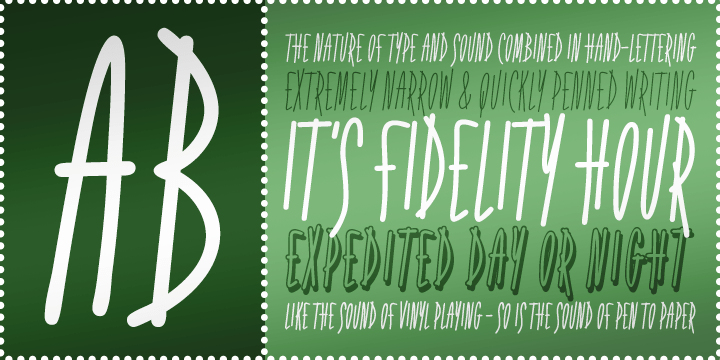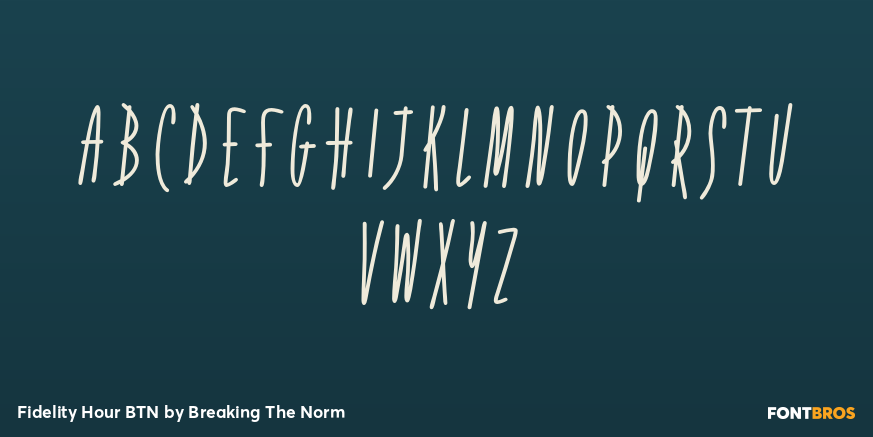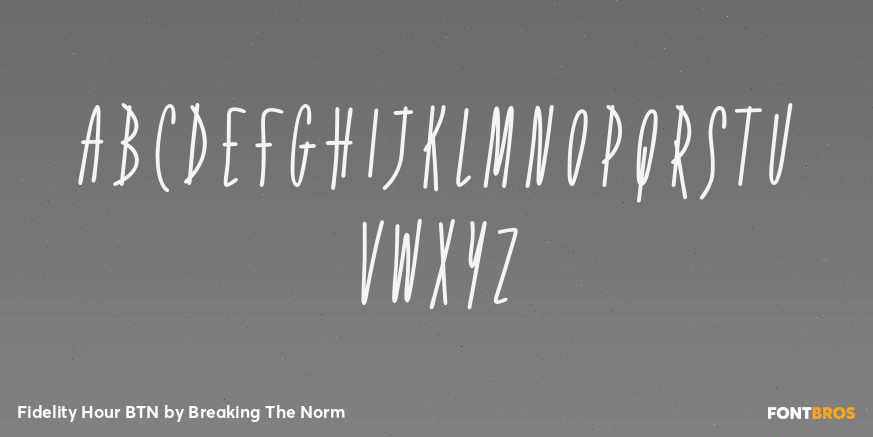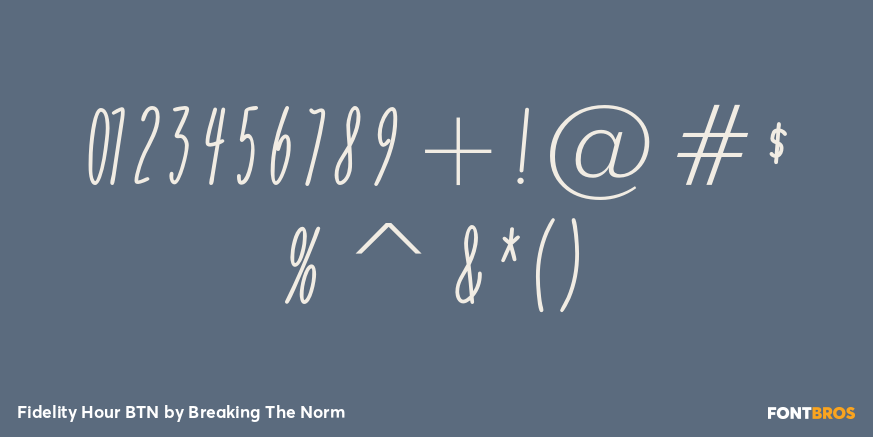
Fidelity Hour BTN
Font Family by Breaking The Norm
Buy NowFidelity Hour BTN is a tall, narrow display family with a handwritten spirit and a strong retro voice. Its condensed all-caps styling gives it an immediate vintage presence, while the hand-drawn character keeps it lively and approachable rather than rigid. The family is well suited for posters, album-inspired graphics, signage, packaging, branding, editorial headlines, and any design that calls for a slim, nostalgic display look. With Light, Regular, Bold, and Shadow styles, Fidelity Hour BTN offers flexible options for creating eye-catching vintage typography with added depth and personality.